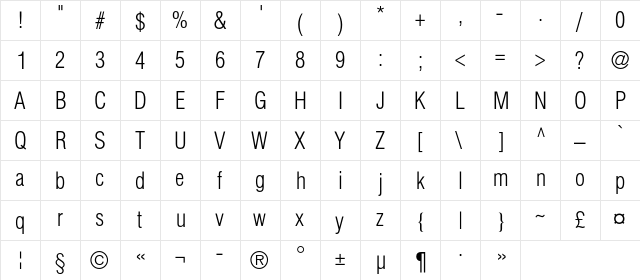
HeliosCondLightC Regular
Design Context for HeliosCondLightC Typeface
HeliosCondLightC is a composed and adaptable typeface that performs quietly and consistently across a wide range of design contexts. Its slender proportions lend an understated elegance to any composition. Its narrow stance lets it pack a punch even in space-constrained designs.